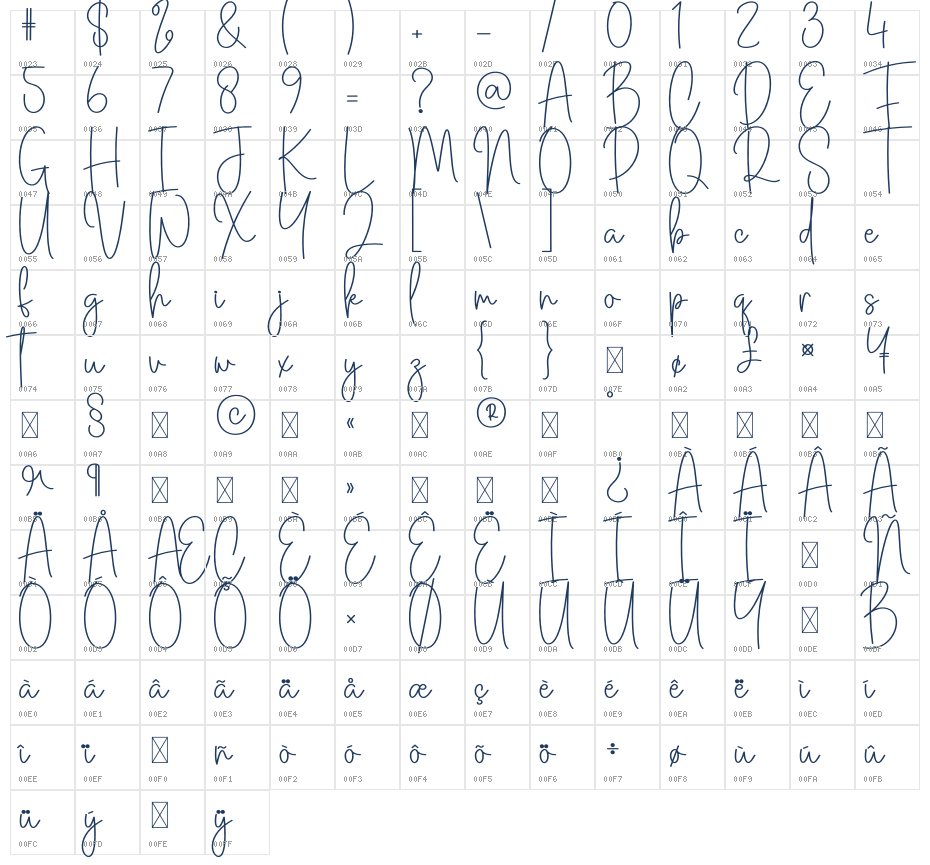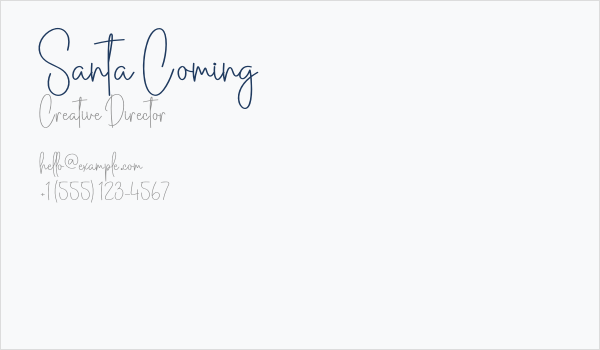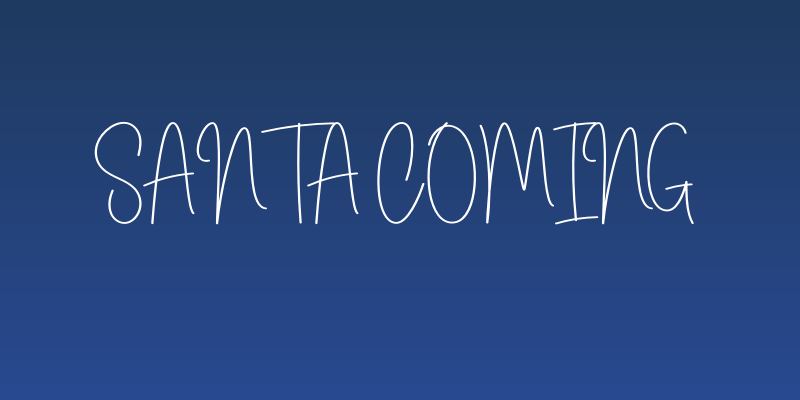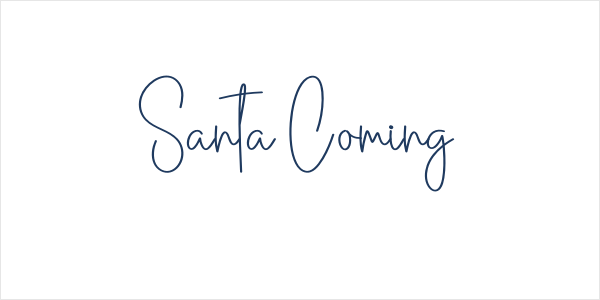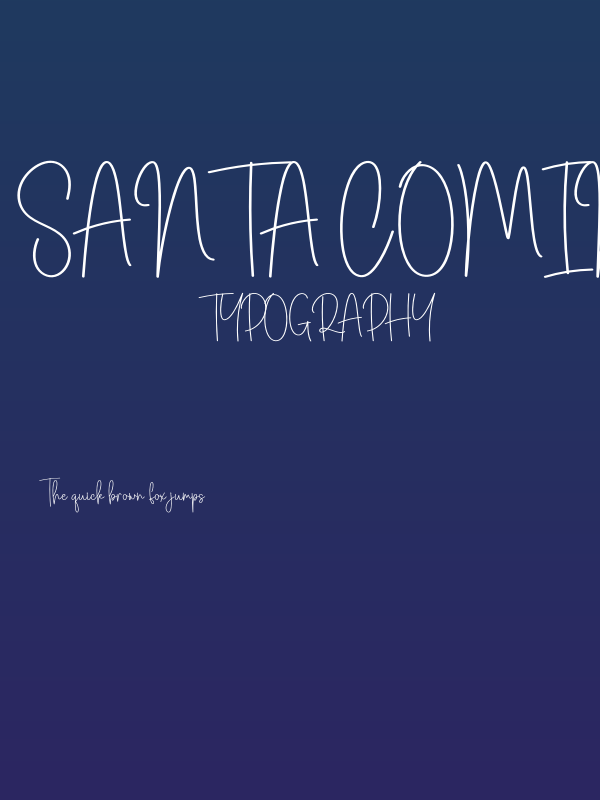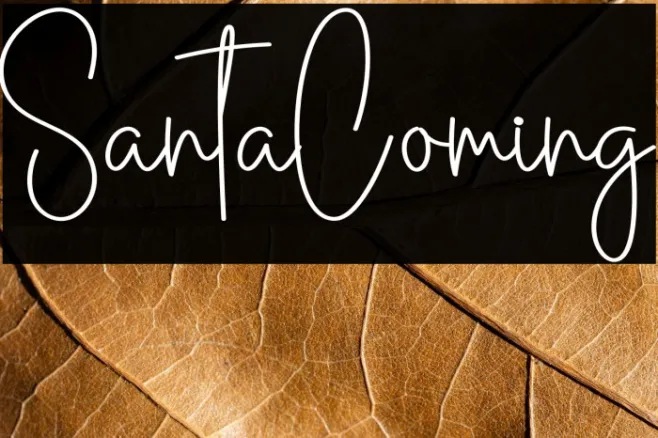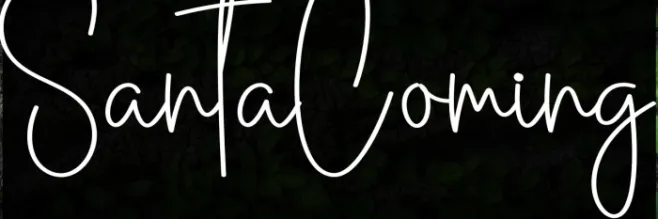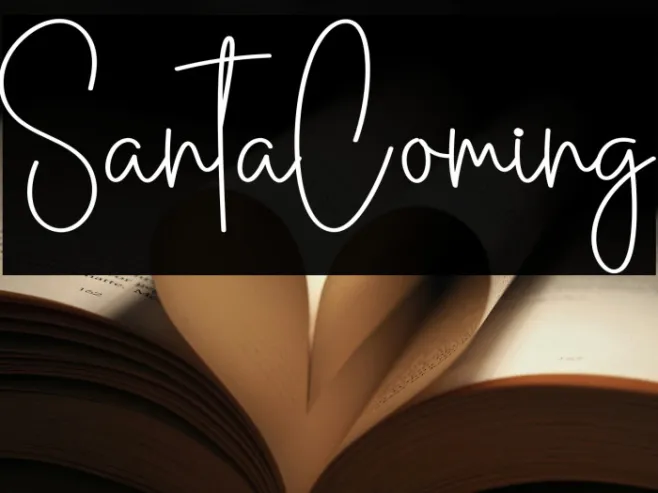
Santa Coming Font
Santa Coming Description
A handwritten, cursive style font with a casual, playful appearance. The characters are thin, elongated, and slightly slanted, giving it an informal and friendly feel.
| Use Case | Personal notes, Invitations, Greeting cards, Informal branding |